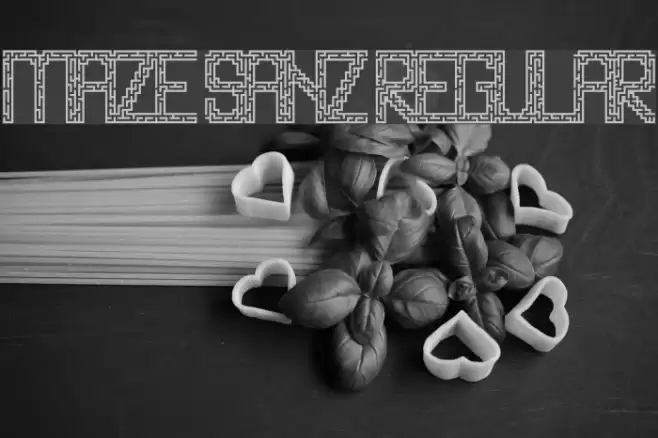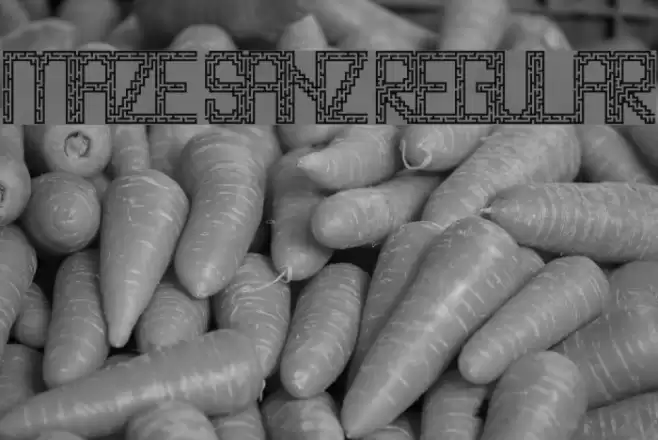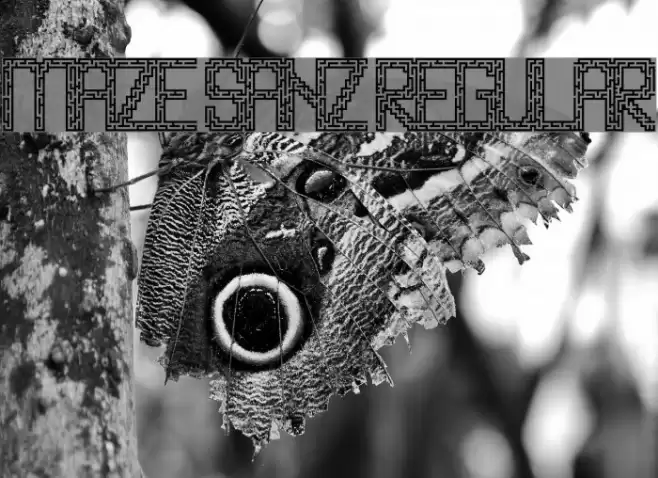
Maze Sanz Regular Font
Maze Sanz Regular Description
This font features a unique maze-like design, where each character is constructed with intricate, interconnected lines that form a labyrinthine pattern. The uppercase and lowercase letters maintain a consistent style, with each character appearing as if it is part of a continuous path. The numbers and special characters follow the same design principle, ensuring uniformity across the entire set. This font's decorative nature makes it stand out, offering a visually engaging experience. The intricate design suggests a playful yet sophisticated aesthetic, suitable for creative and artistic projects.
A decorative font with intricate, maze-like character designs from Decorative fonts.